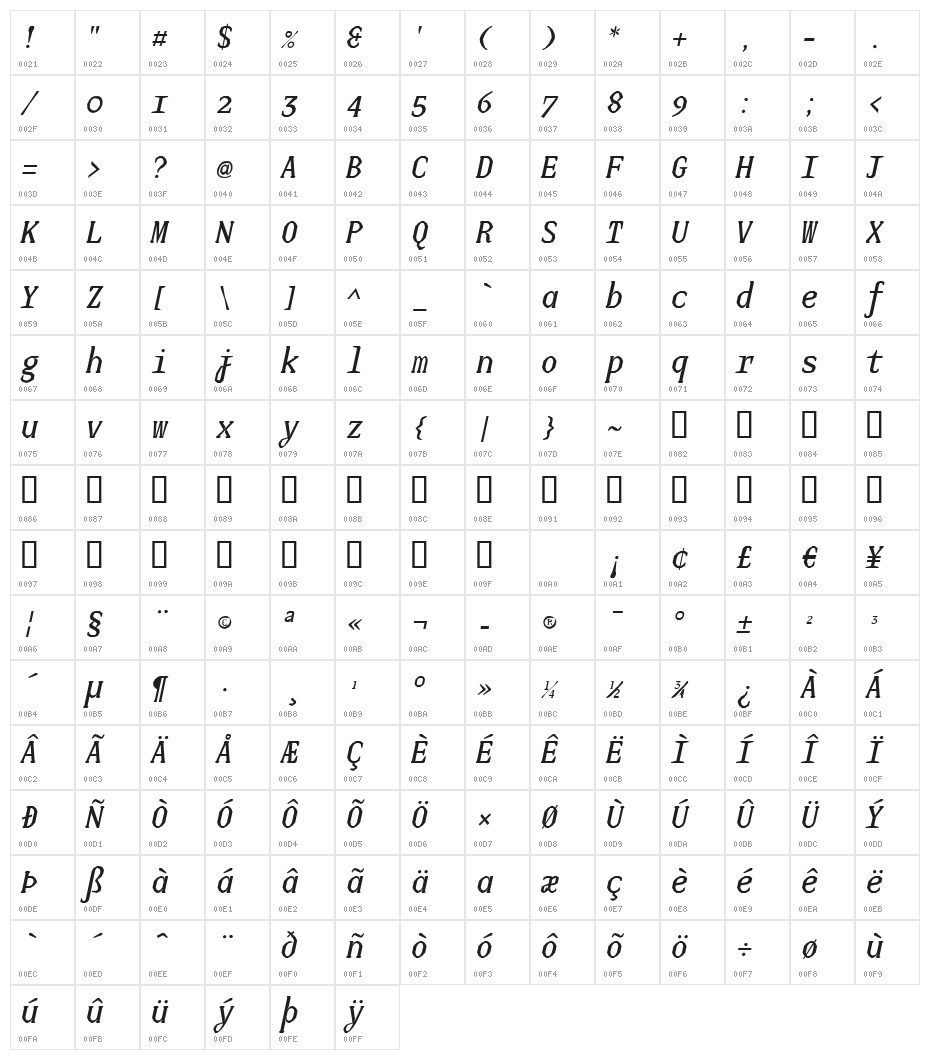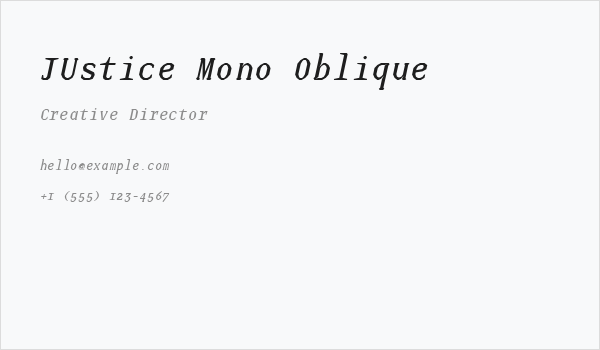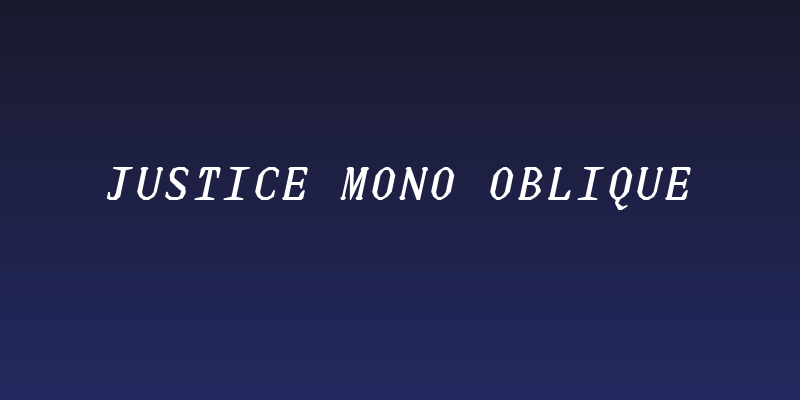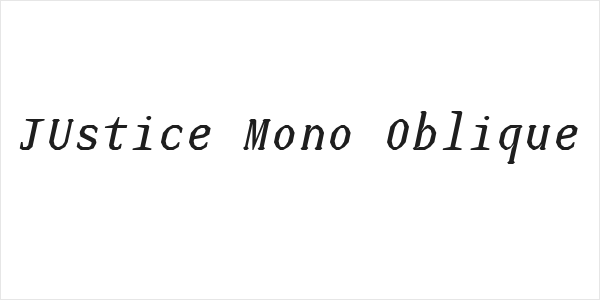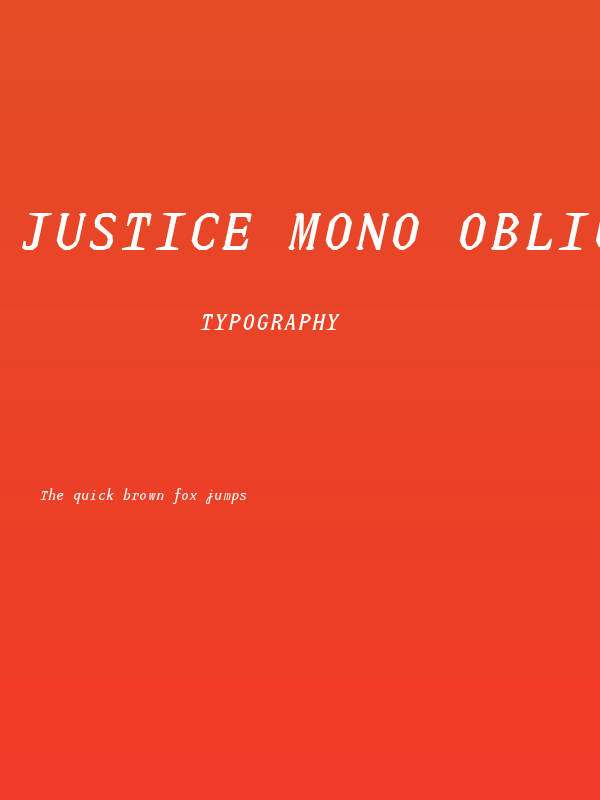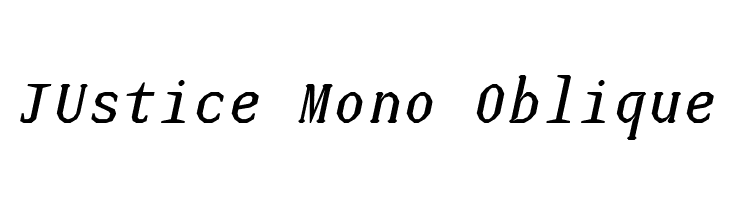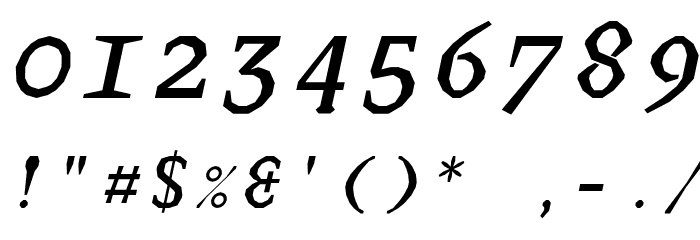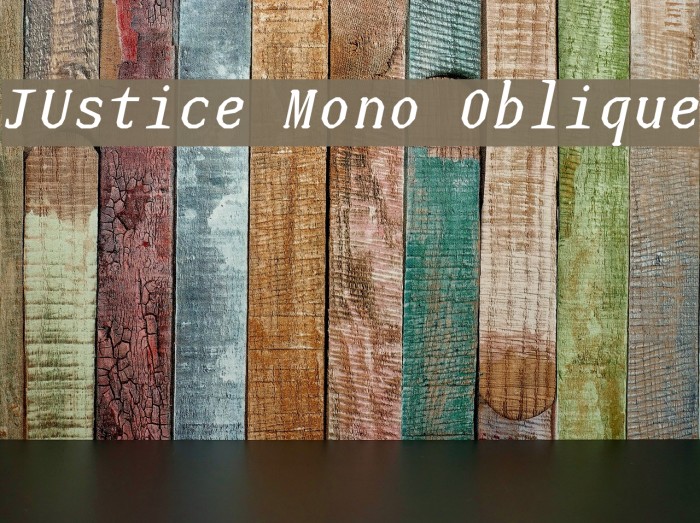
JUstice Mono Oblique Font
JUstice Mono Oblique Description
This font is a monospaced typeface with an oblique style, giving it a dynamic and modern appearance. Each character maintains a consistent width, which is characteristic of monospaced fonts, making it ideal for coding and tabular data. The slanted design adds a sense of motion and energy, while the clean lines and distinct shapes ensure readability. The font includes a full set of uppercase and lowercase letters, numbers, and a variety of special characters, making it versatile for various applications. Its unique style can add a contemporary touch to any project.
| Use Case | Headlines, Body text, Logos, Coding |
| Proposed Projects | Ideal for coding environments, technical documentation, and modern design projects requiring a unique and readable typeface. |